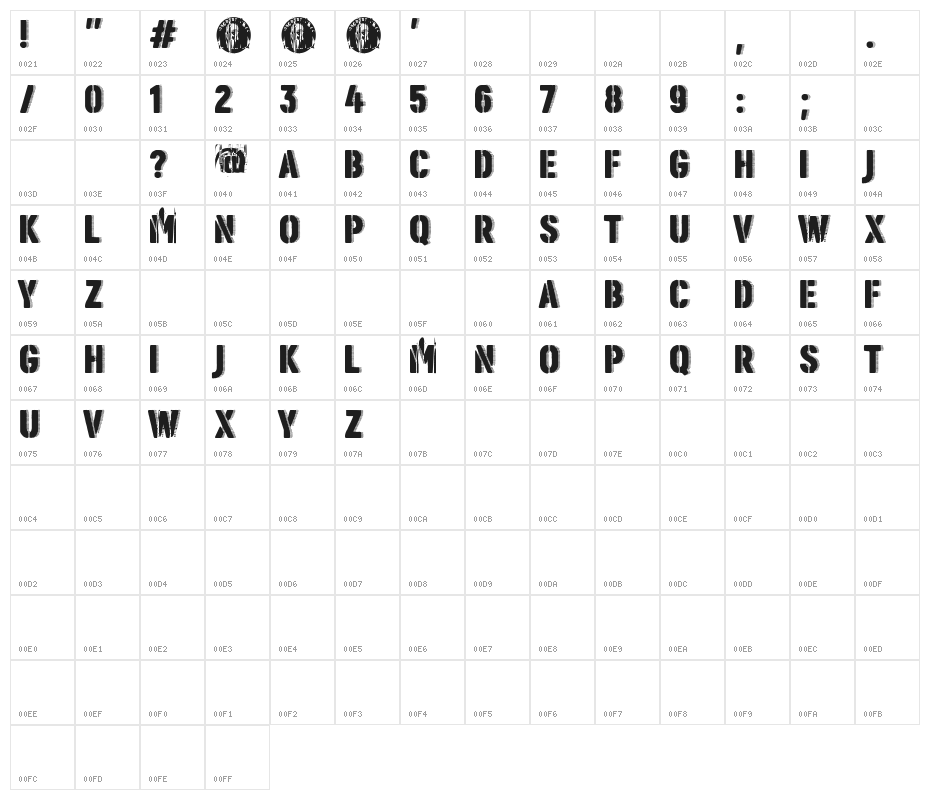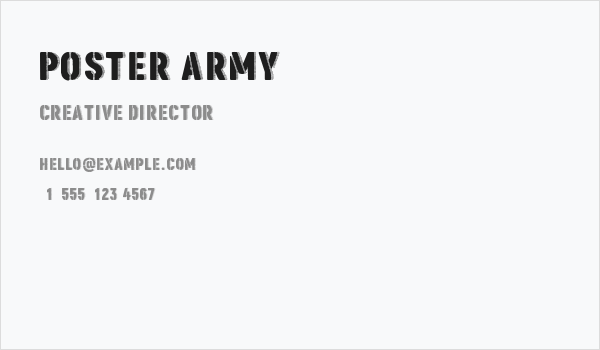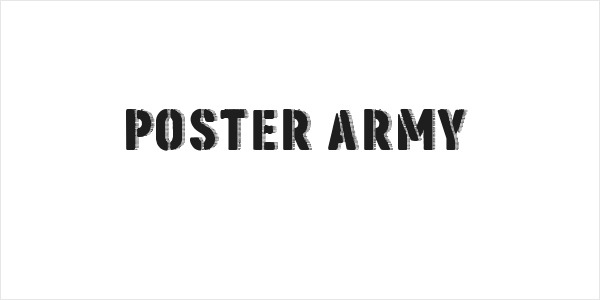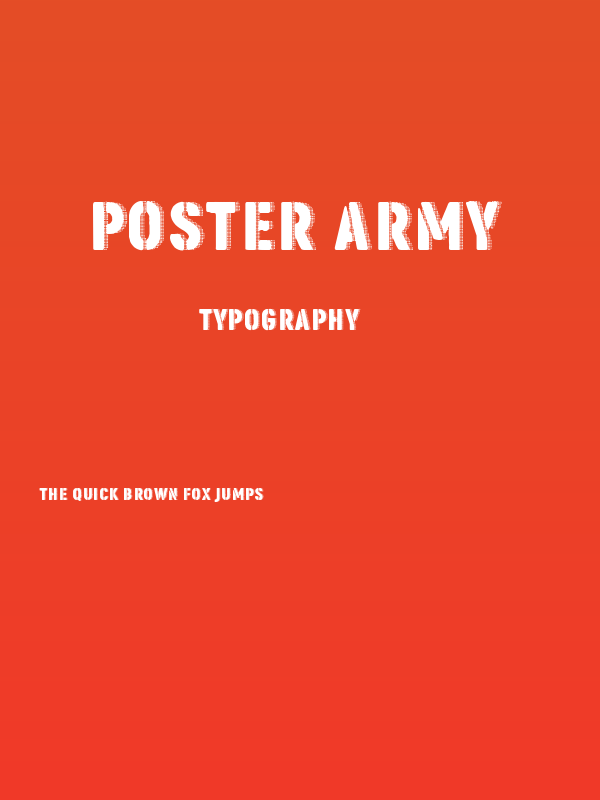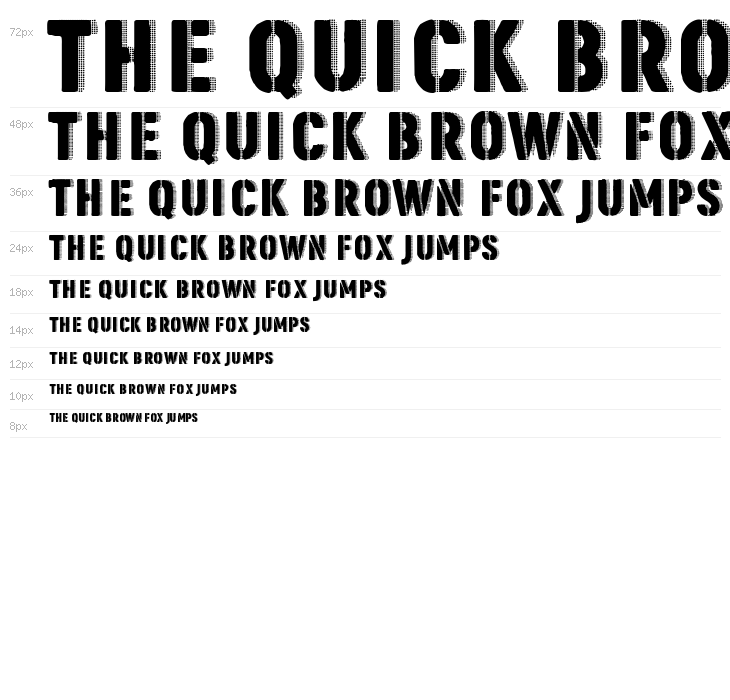
Poster Army Font
Poster Army Description
This font features a bold, stencil-like design with a rugged, military-inspired aesthetic. The characters are uppercase and have a distressed texture, giving them a gritty, worn appearance. The font maintains a strong presence with its thick strokes and uniform width, making it ideal for impactful headlines and attention-grabbing designs. The numbers and special characters follow the same bold and distressed style, ensuring consistency across all text elements. The overall look is reminiscent of vintage military posters, combining strength and nostalgia.
| Overall Style | Vintage |
| Proposed Projects | Ideal for military-themed posters, vintage designs, branding for outdoor or adventure products, and any project requiring a strong, impactful typeface. |